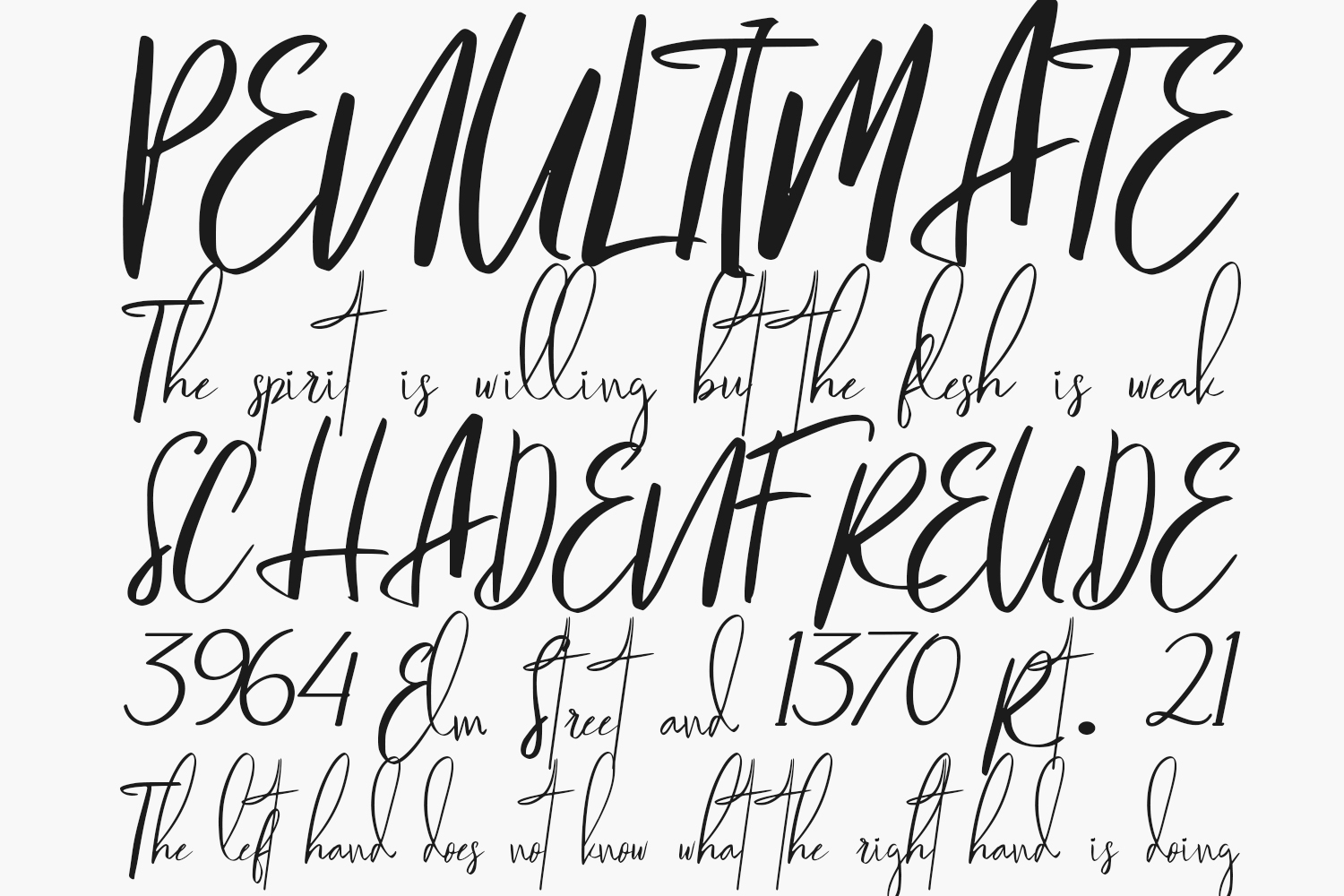
Jagalana Free Font is the perfect font to add an authentic and sophisticated spark to your next design project. Jagalana Free Font was designed by Vunira Design and is free for personal use only. Please purchase the full version for commercial use.